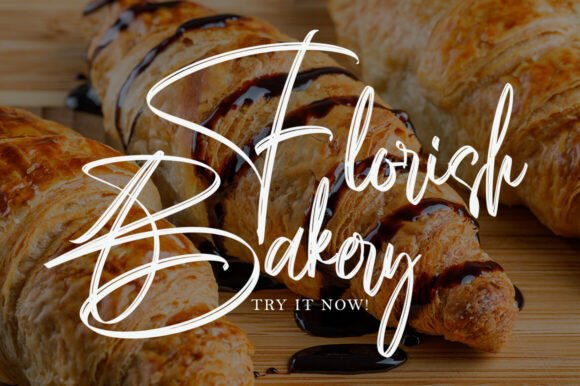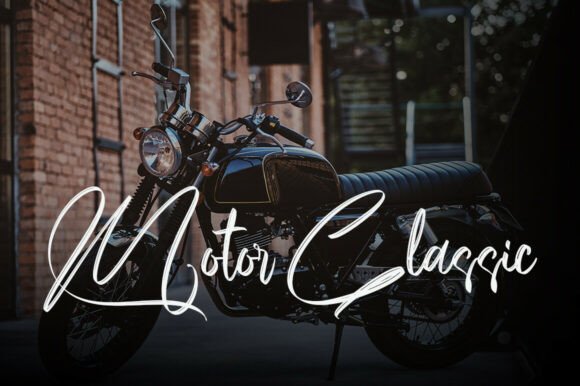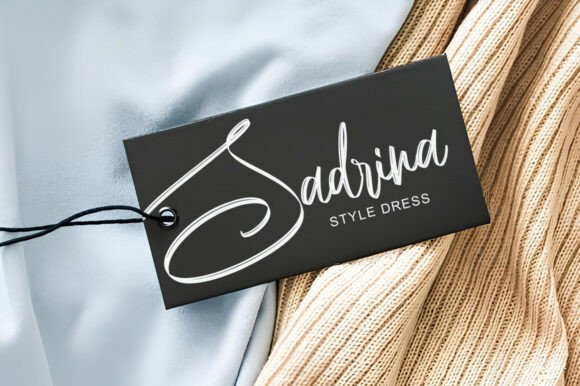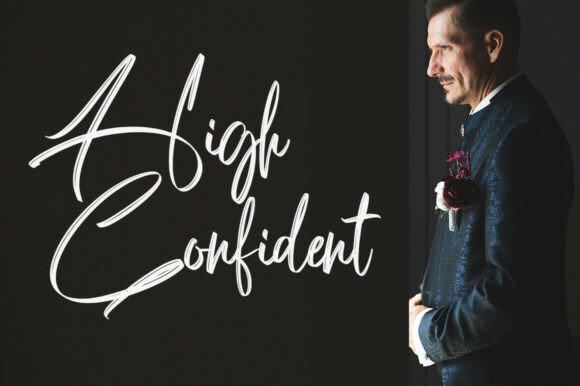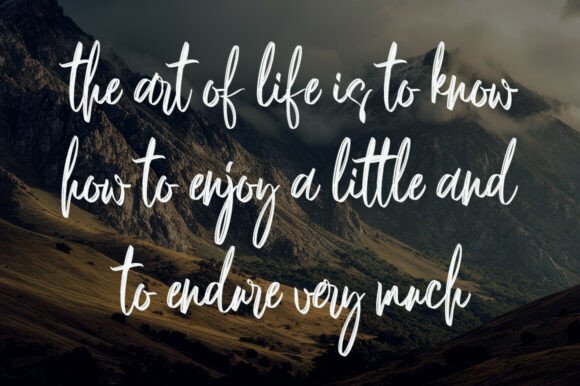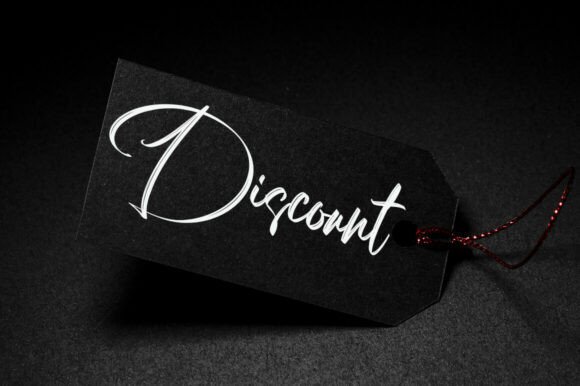
The Perfect Script for Your Special Occasion
Have you ever been tasked with designing a wedding invitation or a birthday card, only to find yourself struggling to capture the essence of the occasion in your chosen font? It’s a common dilemma many designers face, but one that can be easily resolved with the right tool. That’s where the Birthday Calligraphy Font comes in – a stunning calligraphy brush font that exudes classic elegance and sophistication.
Designed to work seamlessly in a variety of design projects, from book covers to logos and business cards, the Birthday Calligraphy Font is a valuable asset for any designer looking to add a touch of luxury and formality to their work. Its rich OpenType features make it easy to use and customize, allowing you to unleash your creativity and bring your designs to life.
Birthday Calligraphy Font Key Features
- Font Family: A beautiful, elegant script font designed for special occasions like birthdays, weddings, and anniversaries.
- Unique Characteristics: The font features intricate, hand-drawn lettering with subtle flourishes and swashes, adding a touch of elegance and sophistication to any design.
Designer Review: Birthday Calligraphy Font
Overall, I’d say the Birthday Calligraphy Font is a decent addition to any designer’s toolkit, but it’s not without its flaws. Let’s dive into what works well and what doesn’t.
- Beautiful, elegant design that’s perfect for birthday celebrations and special occasions.
- High-quality vector files make it easy to scale and manipulate the font without losing any detail.
- Wide range of languages supported, making it a great option for global celebrations.
- Limited flexibility in terms of customization – it’s a bit tricky to modify the font without losing its signature look.
- Some of the characters may not be as polished as others, which can be a bit jarring in certain contexts.
- Not ideal for long blocks of text, as the font can become a bit overwhelming and difficult to read.
Overall, I’d give the Birthday Calligraphy Font 3.5 out of 5 stars. While it’s a lovely font for special occasions, its limitations make it less versatile than other options. Still, it’s a great choice for designers who need a beautiful, elegant font for a specific project.
- Use it for birthday invitations, party decorations, and gift tags.
The Birthday Calligraphy Font is perfect for:
- Birthday invitations and party decorations.
- Gift tags and gift wrapping.